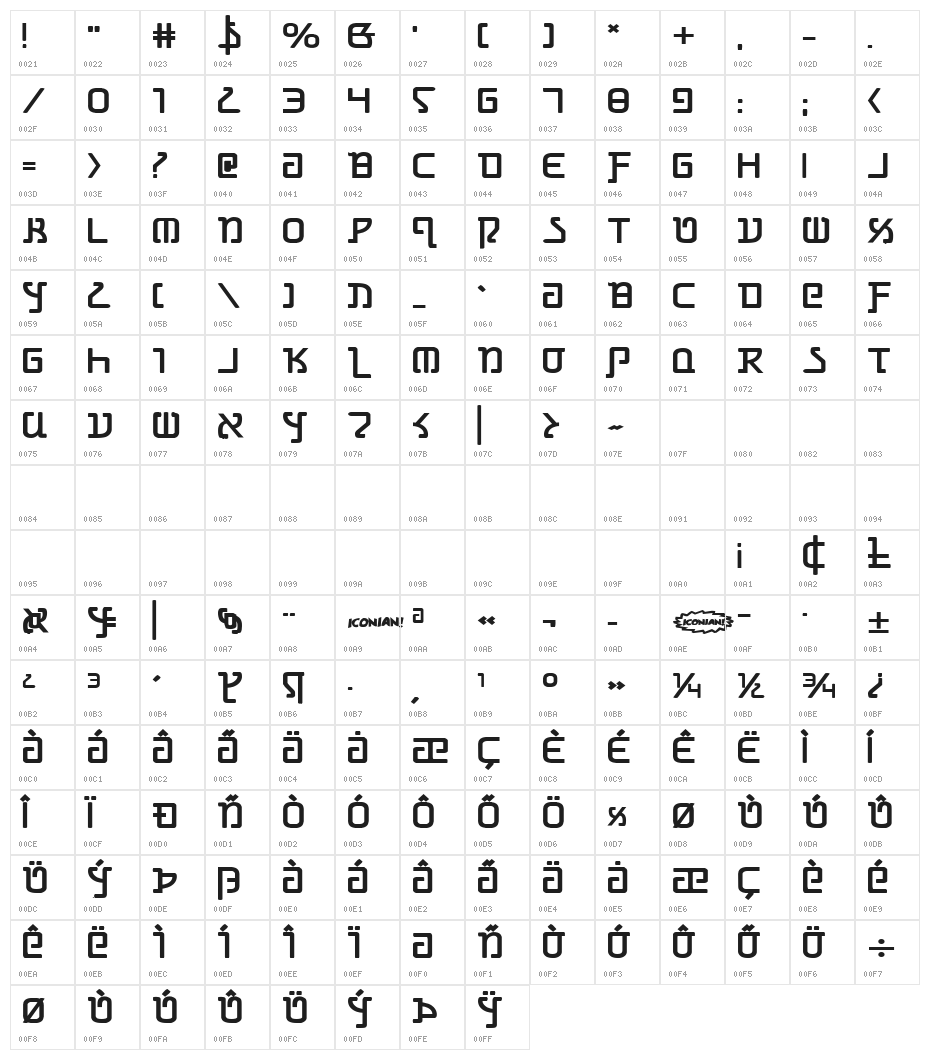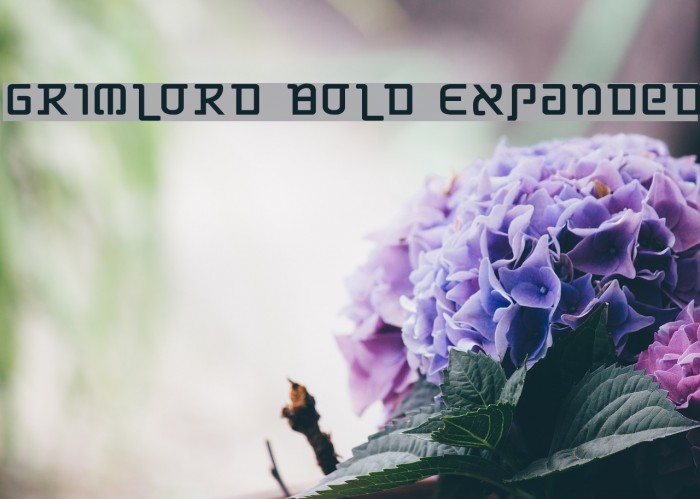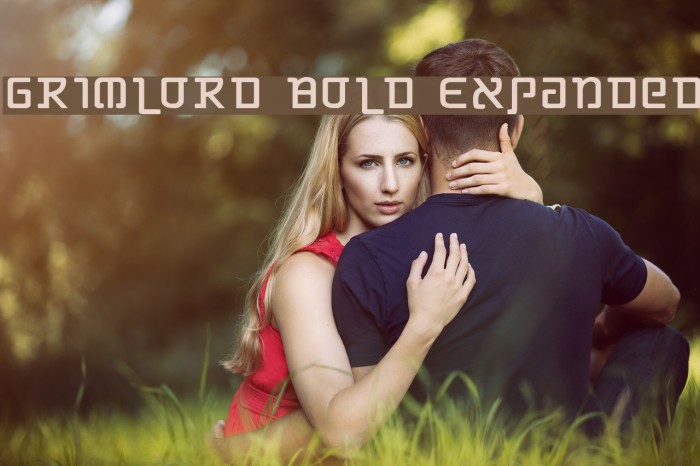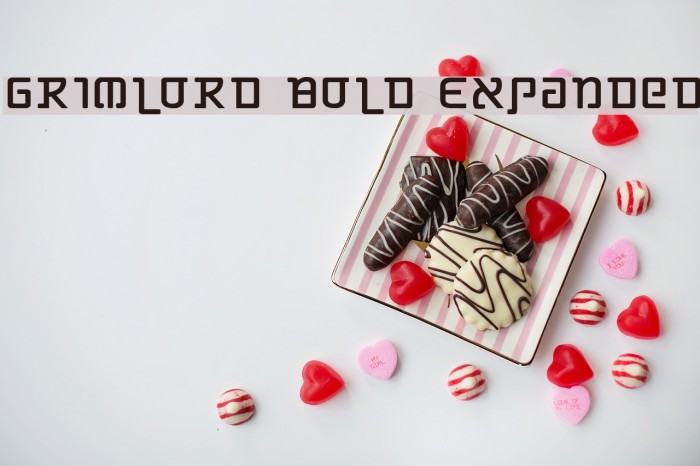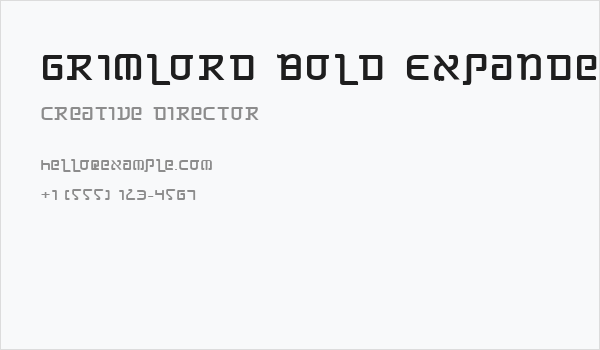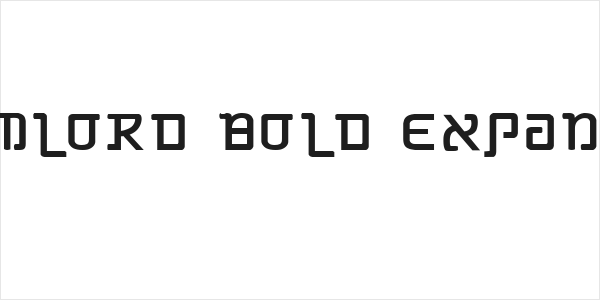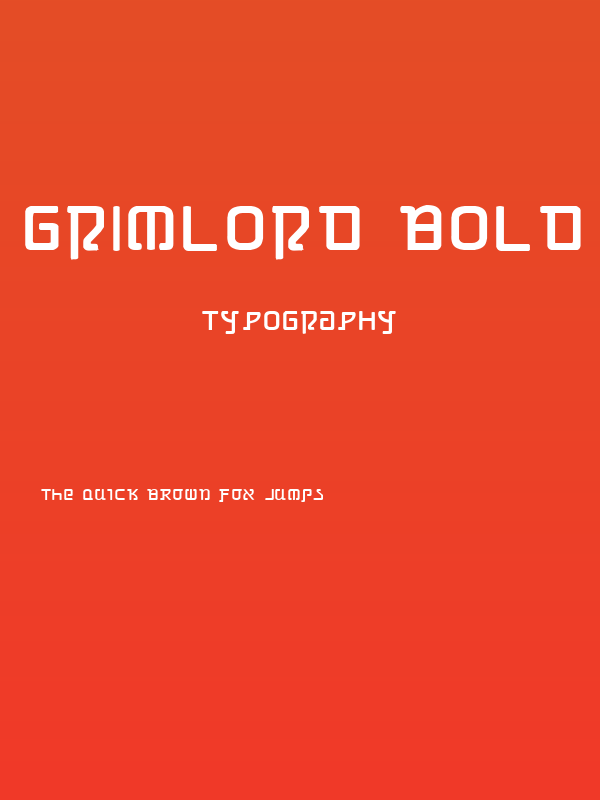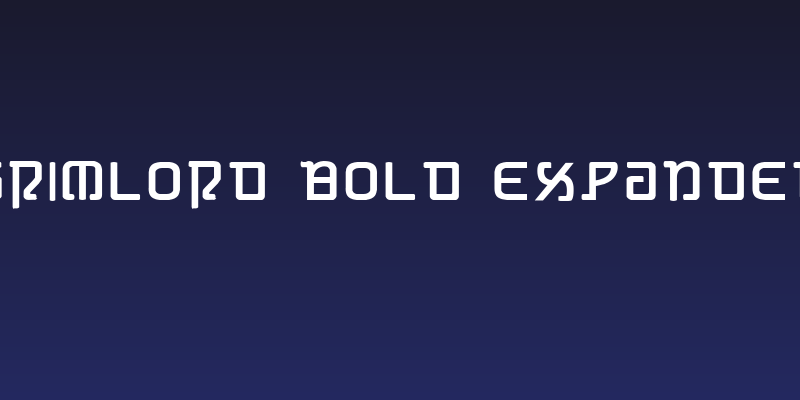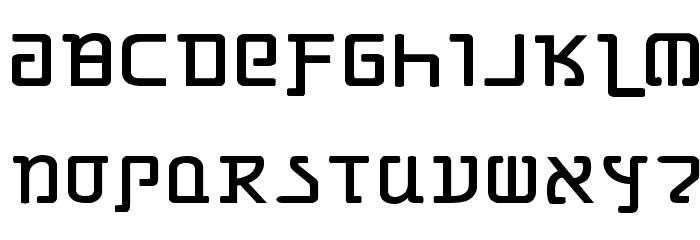
Grimlord Bold Expanded Font
Grimlord Bold Expanded Description
This font features a bold and expanded style with a futuristic and geometric design. The characters are constructed with a combination of straight lines and rounded edges, giving it a unique and modern appearance. The uppercase and lowercase letters maintain a consistent height, contributing to a uniform look. Numbers and special characters are designed with the same boldness and geometric precision, making them stand out. The font's distinct style is suitable for creating eye-catching headlines and logos, where a strong and modern aesthetic is desired.
Overall StyleFuturistic
Proposed ProjectsIdeal for sci-fi themed designs, technology branding, video game titles, and modern posters.